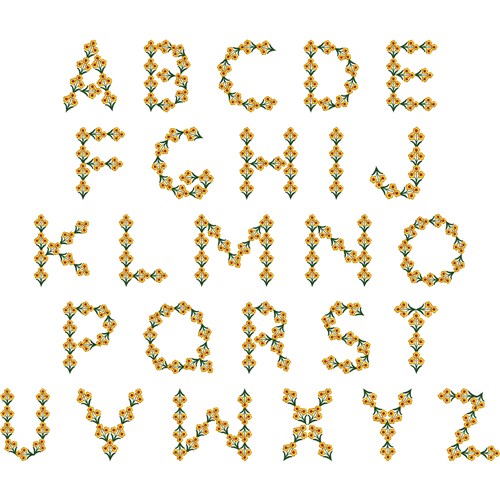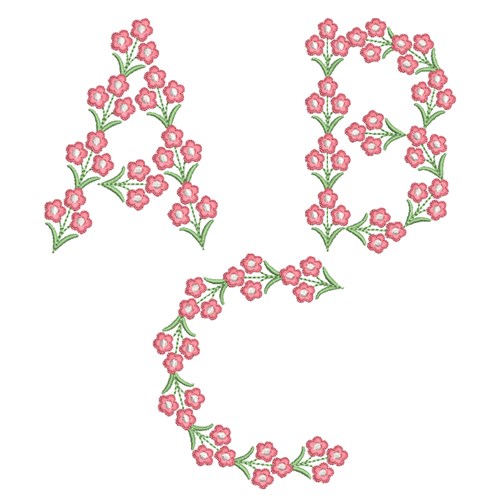
Satin Stripes is happy to present Charming Floral Embrilliance Embroidery Font - Whimsical Decorative Letters - BX font machine embroidery font which has Decorative machine embroidery font with floral-themed letters arranged in a grid, ideal for vibrant home decor or personal projects like cushion covers. Available in BX font and Embrilliance. included. If you would like to view more embroidery fonts and alphabets please search our embroidery fonts page.
Charming Floral Embrilliance Embroidery Font - Whimsical Decorative Letters - BX font